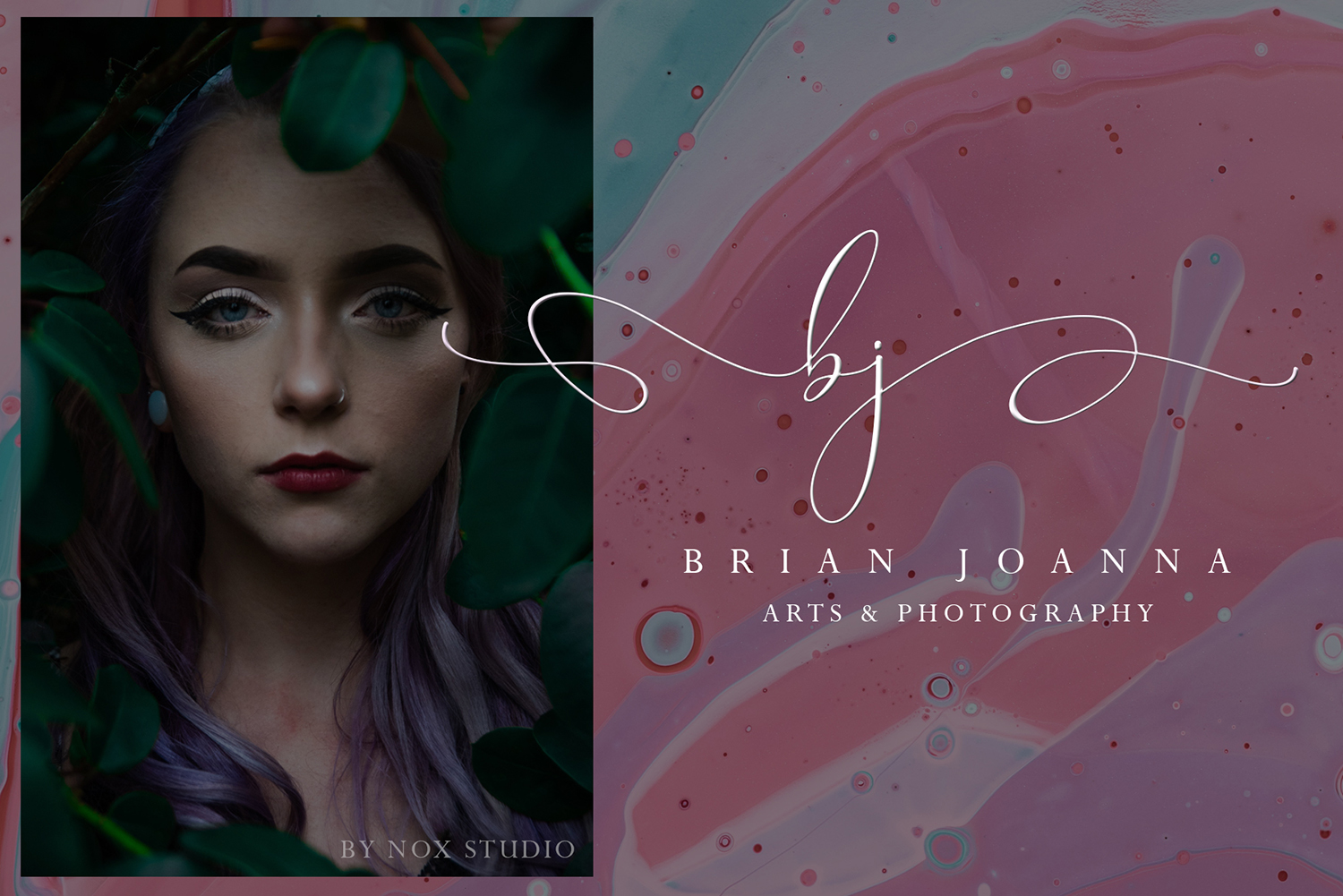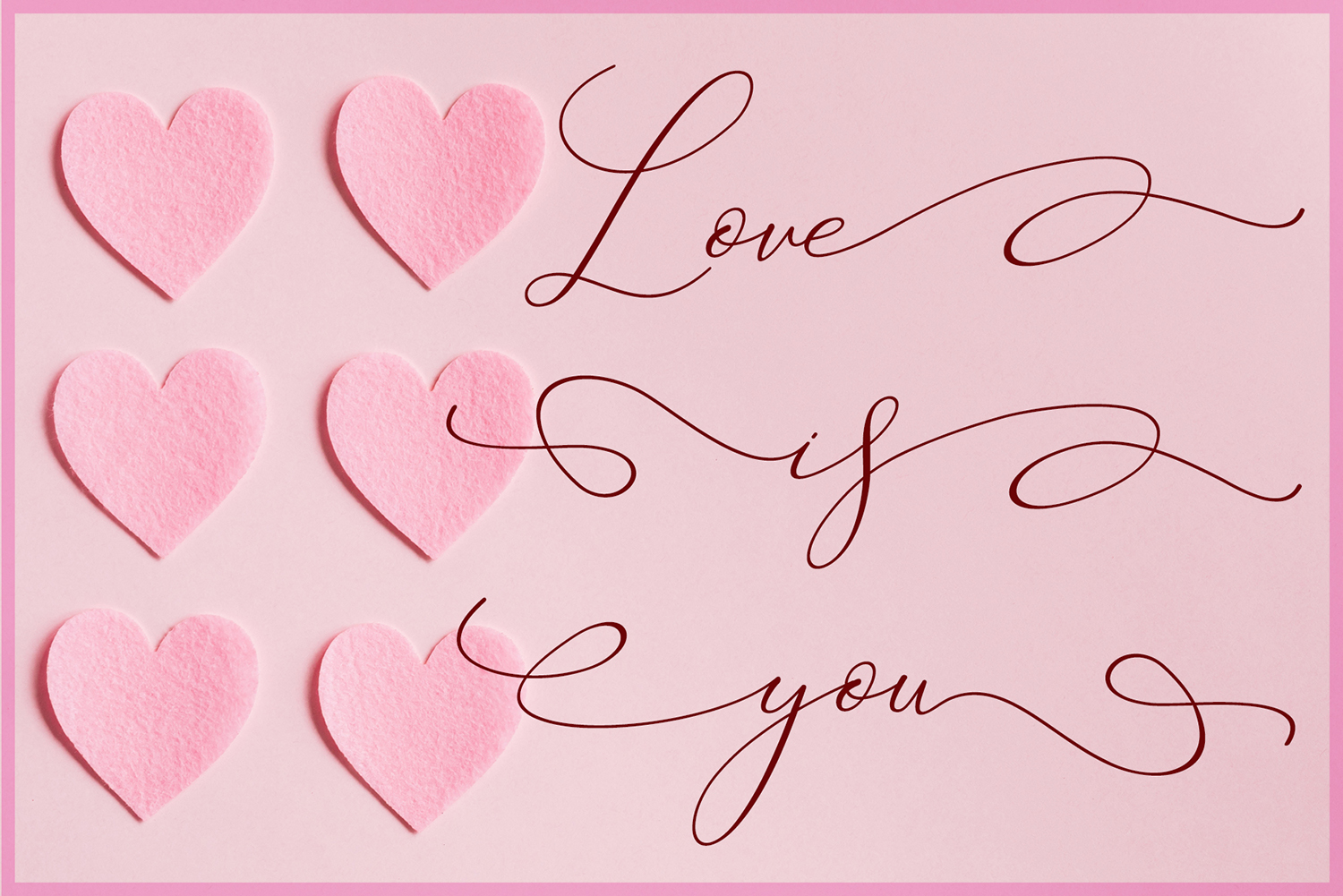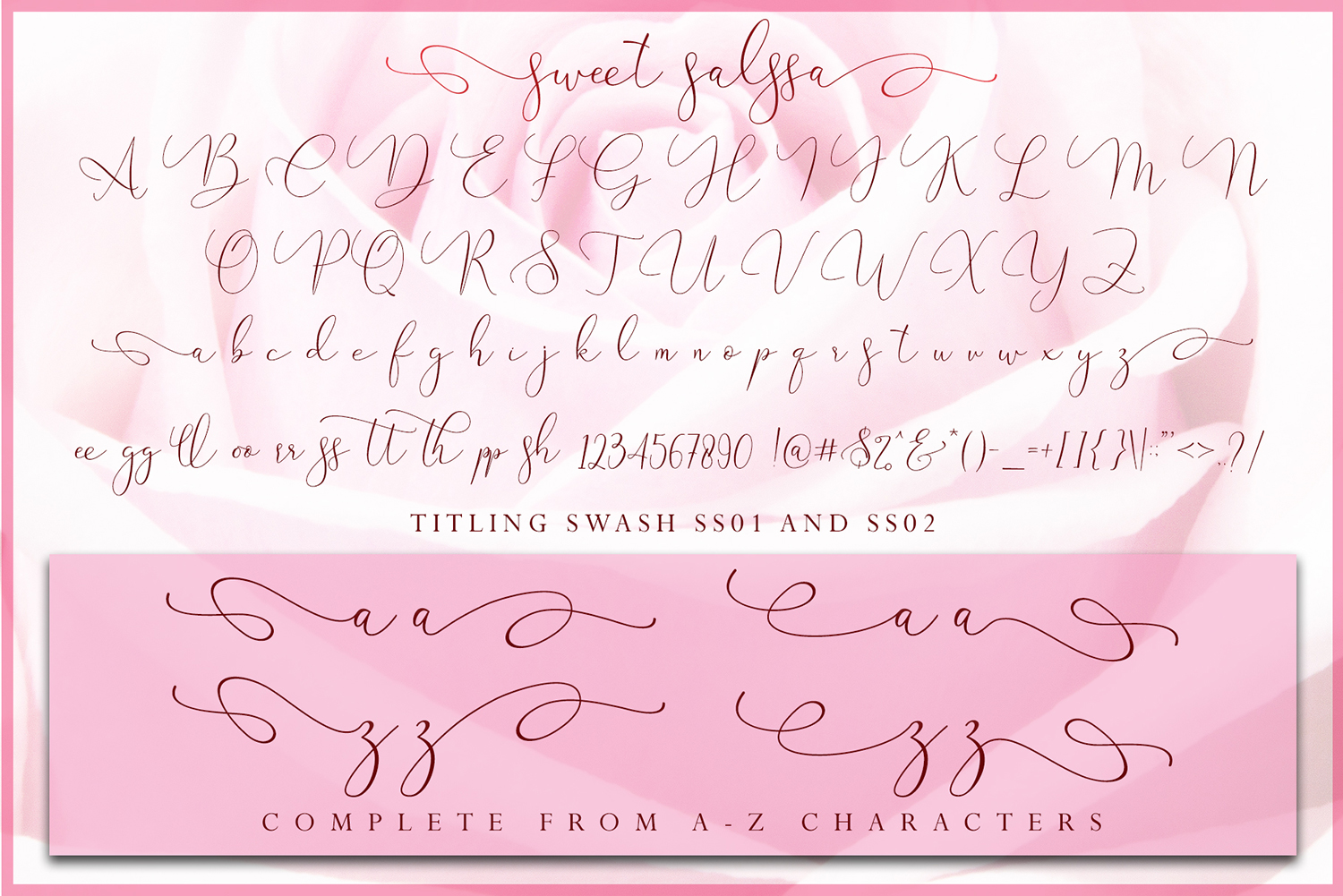
Sweet Salssa Free Font
Sweet Salssa Free Font is a sleek and graceful handwritten font that exudes style and charm. An invaluable addition to your font library, this typeface is a versatile asset that can elevate any project, regardless of the topic. Embrace the beauty and versatility of Katerlin Sweet Salssa to create captivating designs that leave a lasting impression. This free typeface was designed by a talented Sarif Hidayat. If you like it don’t forget to check out the full version.